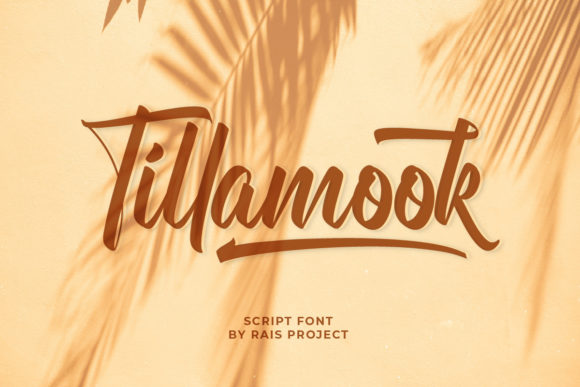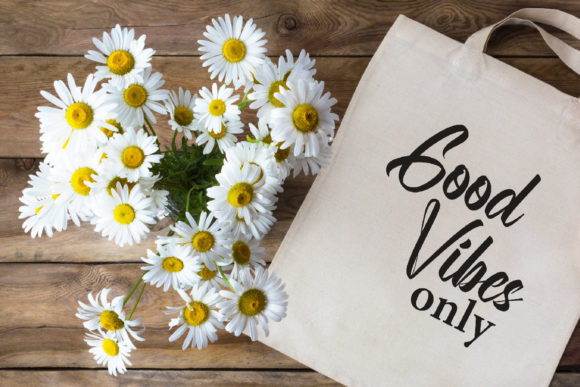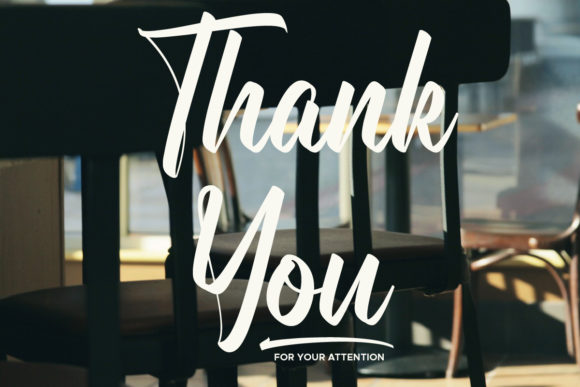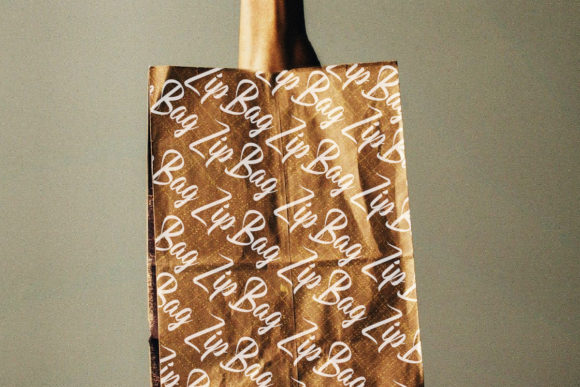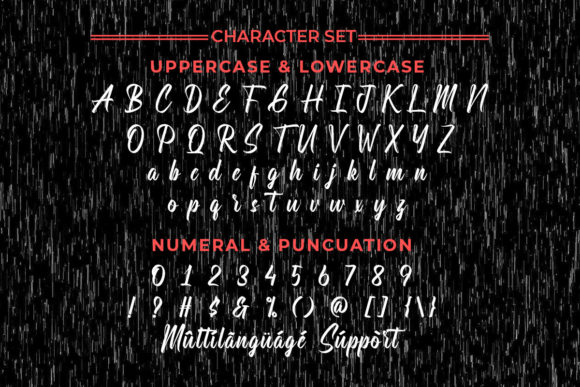
About Tillamook Font
Tillamook is a lovely, refined brushed script font that emanates sophistication and elegance. Its stylish alternates and ligatures make this font the perfect match for any project.